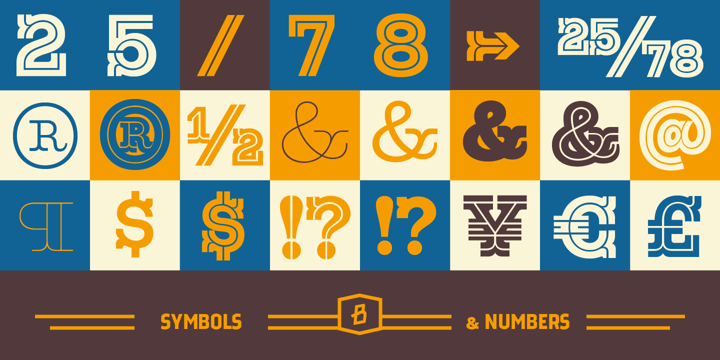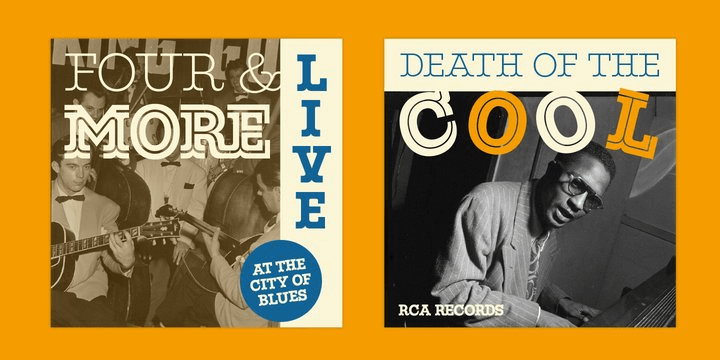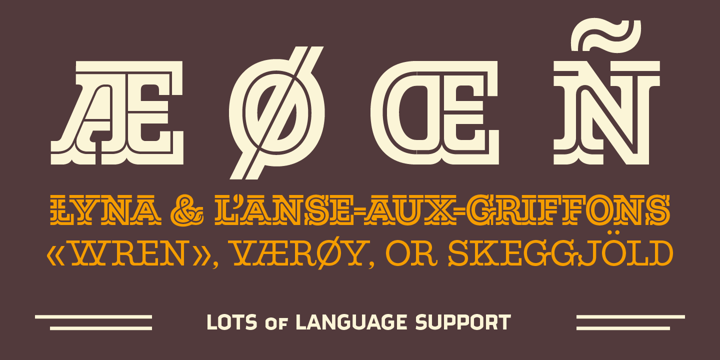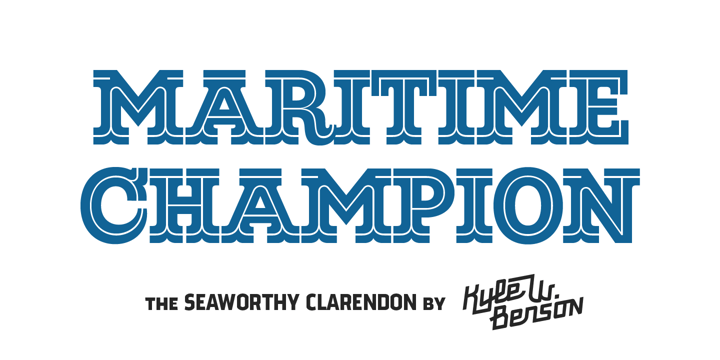
About Maritime Champion
Make no mistake, Maritime Champion is not simply seaworthy. This peacoat grubbing, all hands on decking, accordion serenading font is not for the faint of heart. He\’s all caps all the time. Even the lightest of his six weights is enough to anchor a Man-o-War…